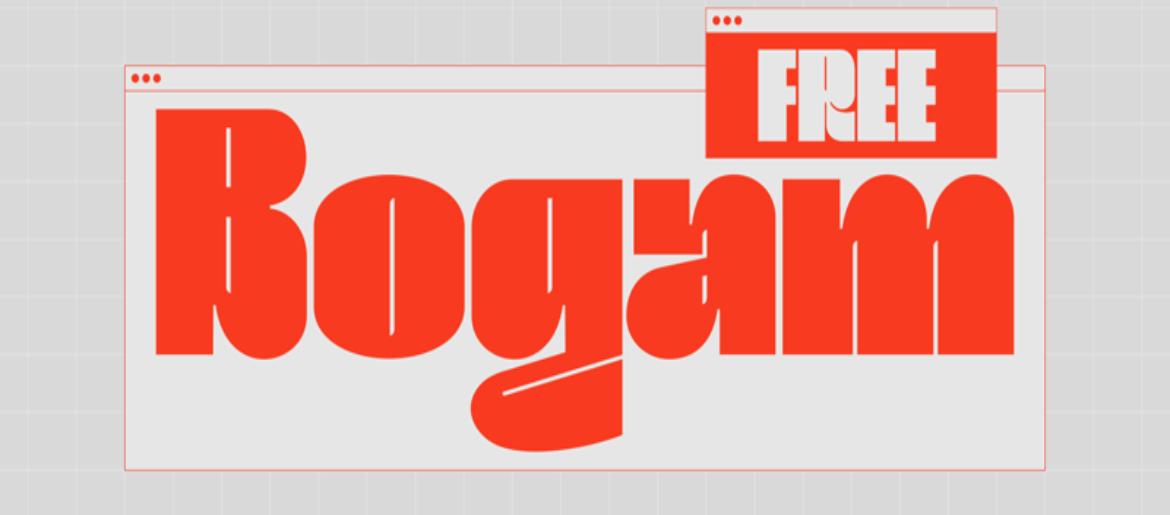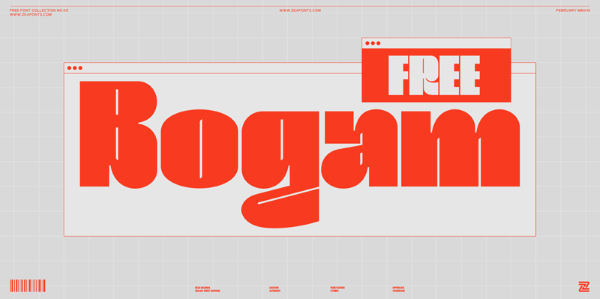
Bogam Font
Bogam Font is a modern display typeface featuring bold letterforms and distinctive contemporary styling. It delivers strong visual impact, making it suitable for logos, branding, posters, packaging, and headline typography. Its expressive character and balanced structure help designs stand out while fitting seamlessly into creative and eye-catching free fonts collections for modern design projects.
➤ Font Name: Bogam
➤ Designer: Bagerich
➤ Style: Display